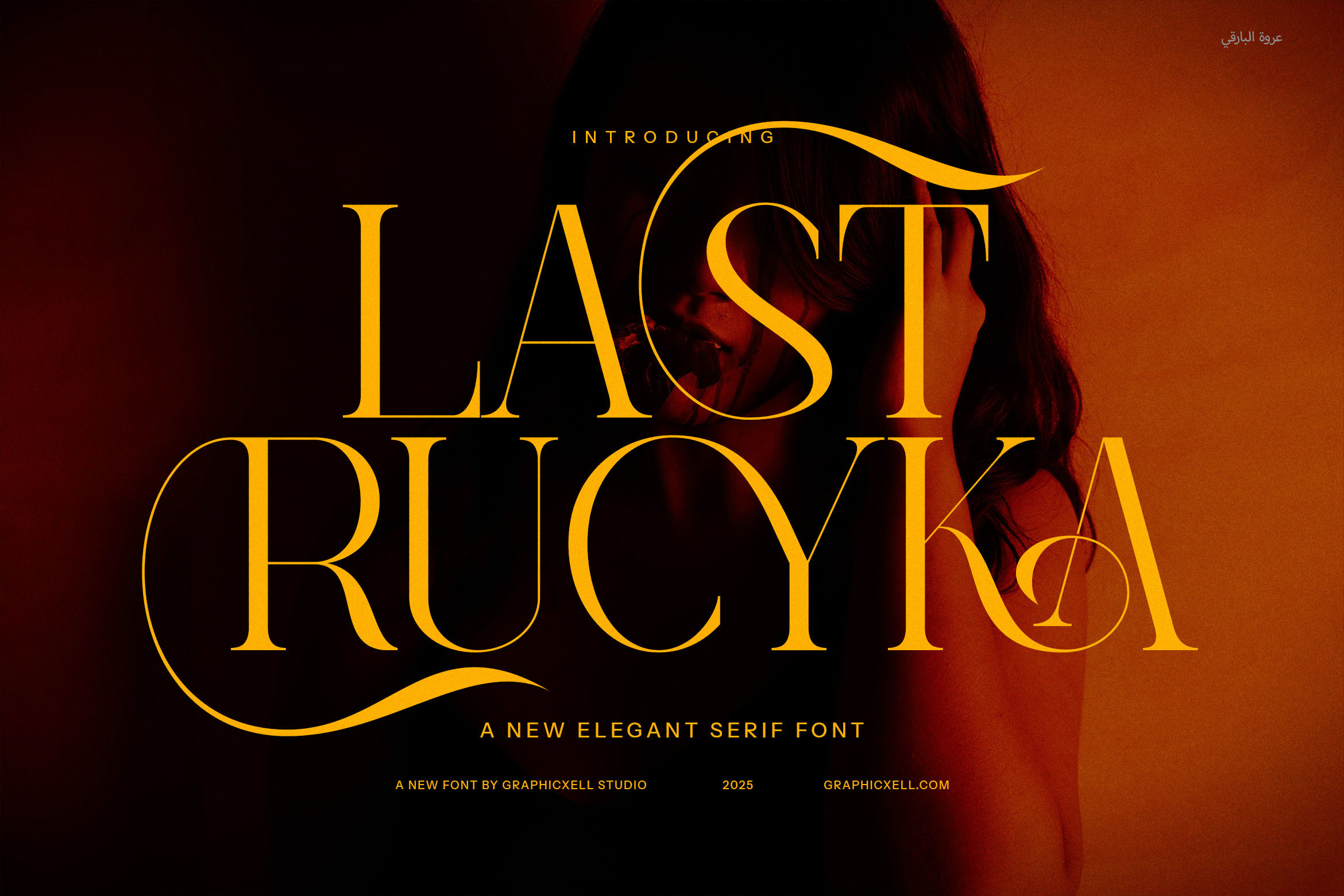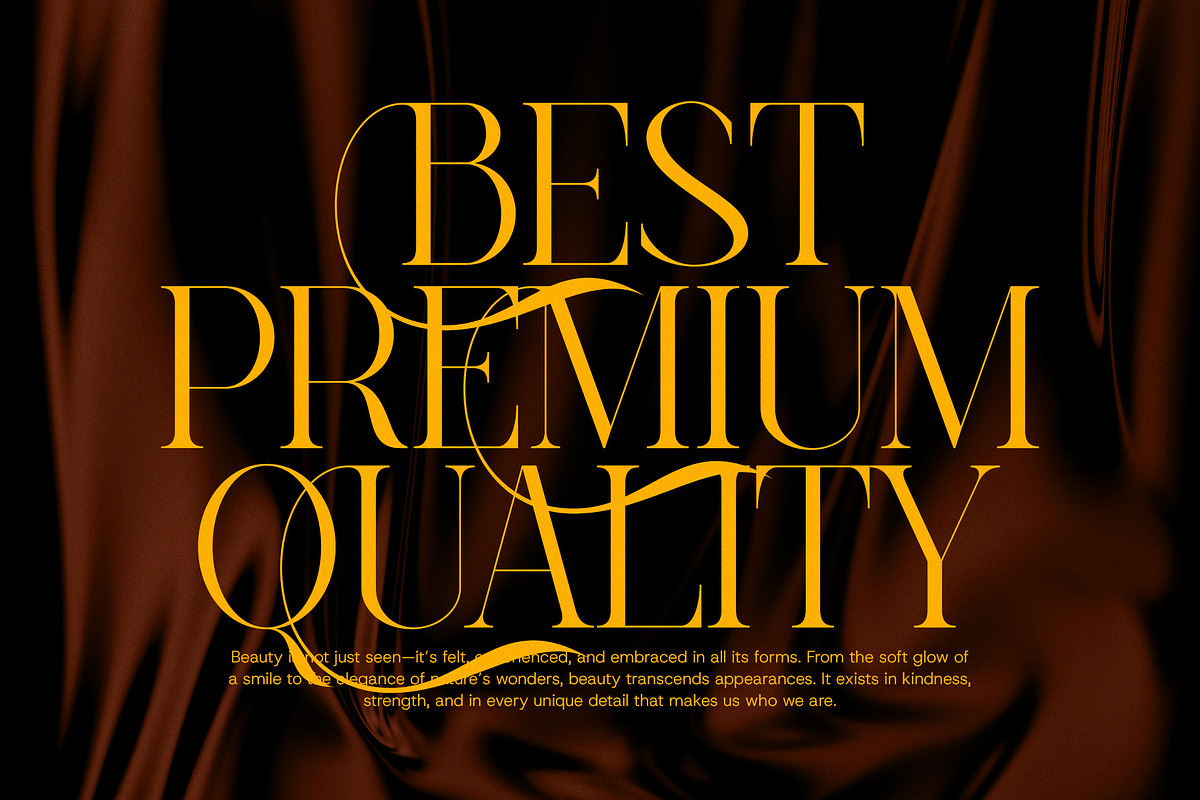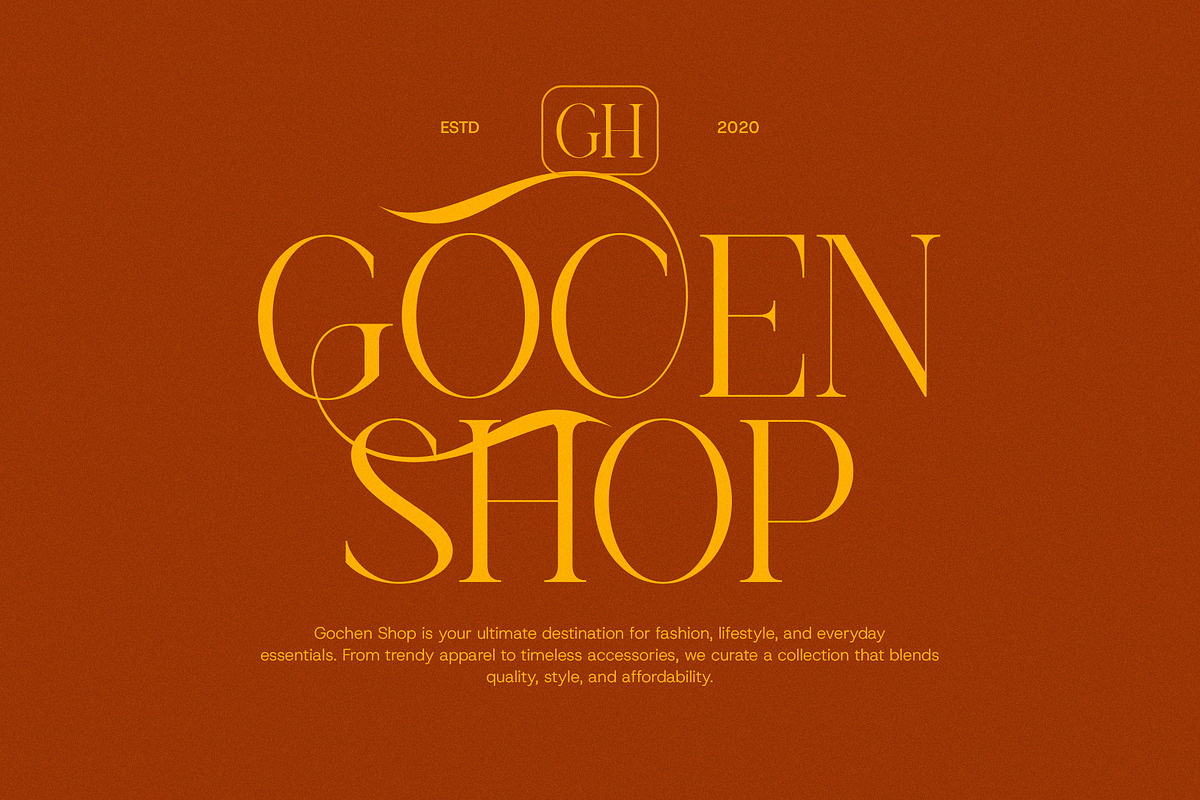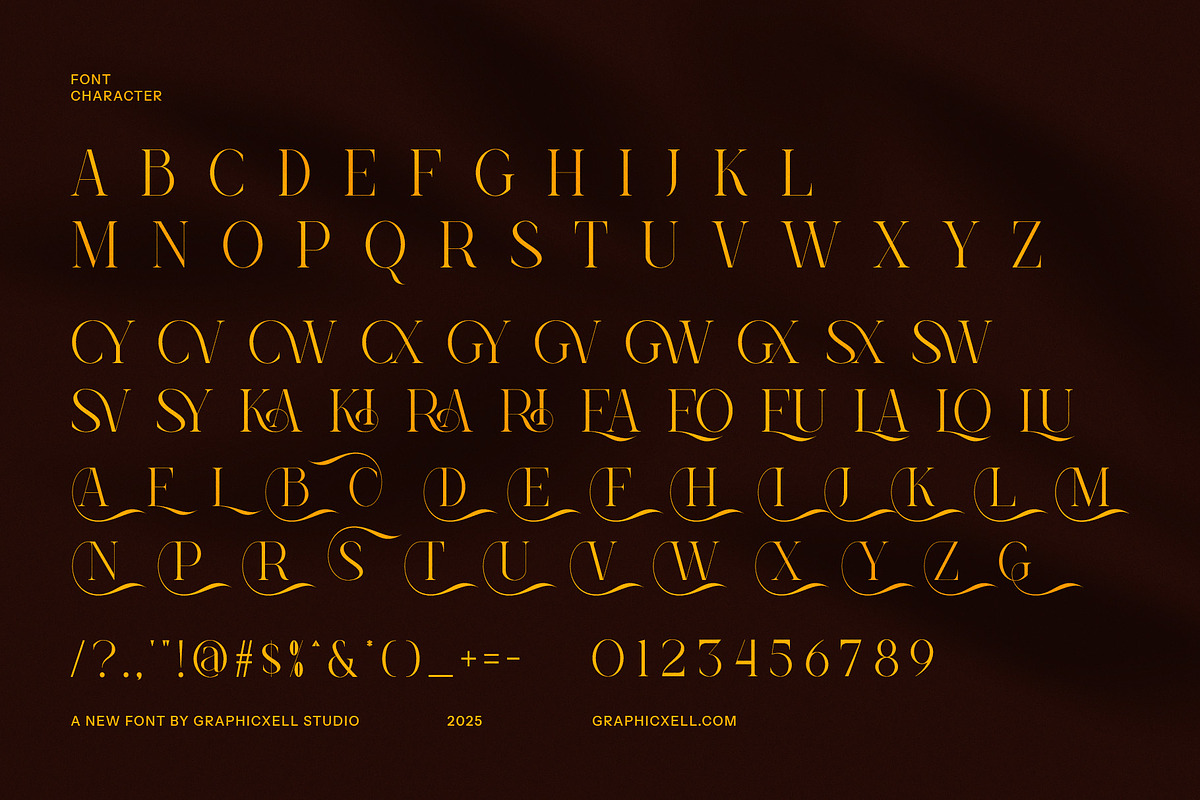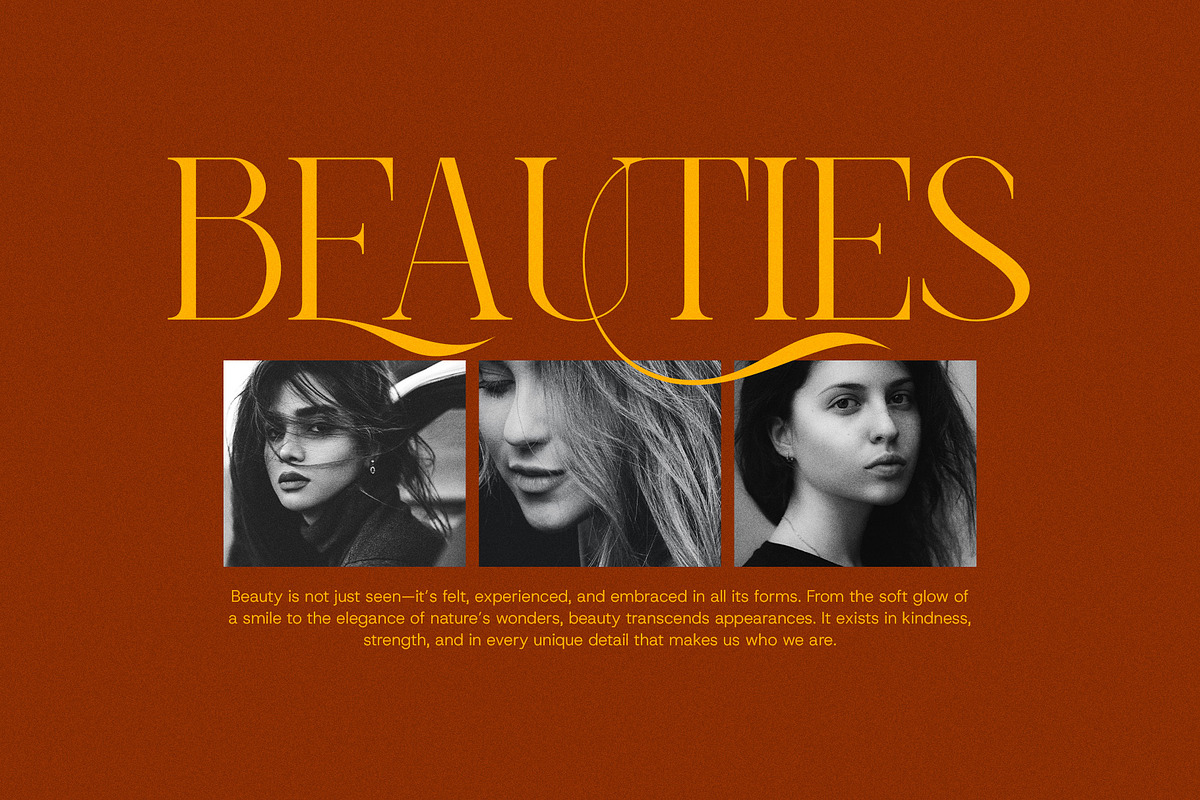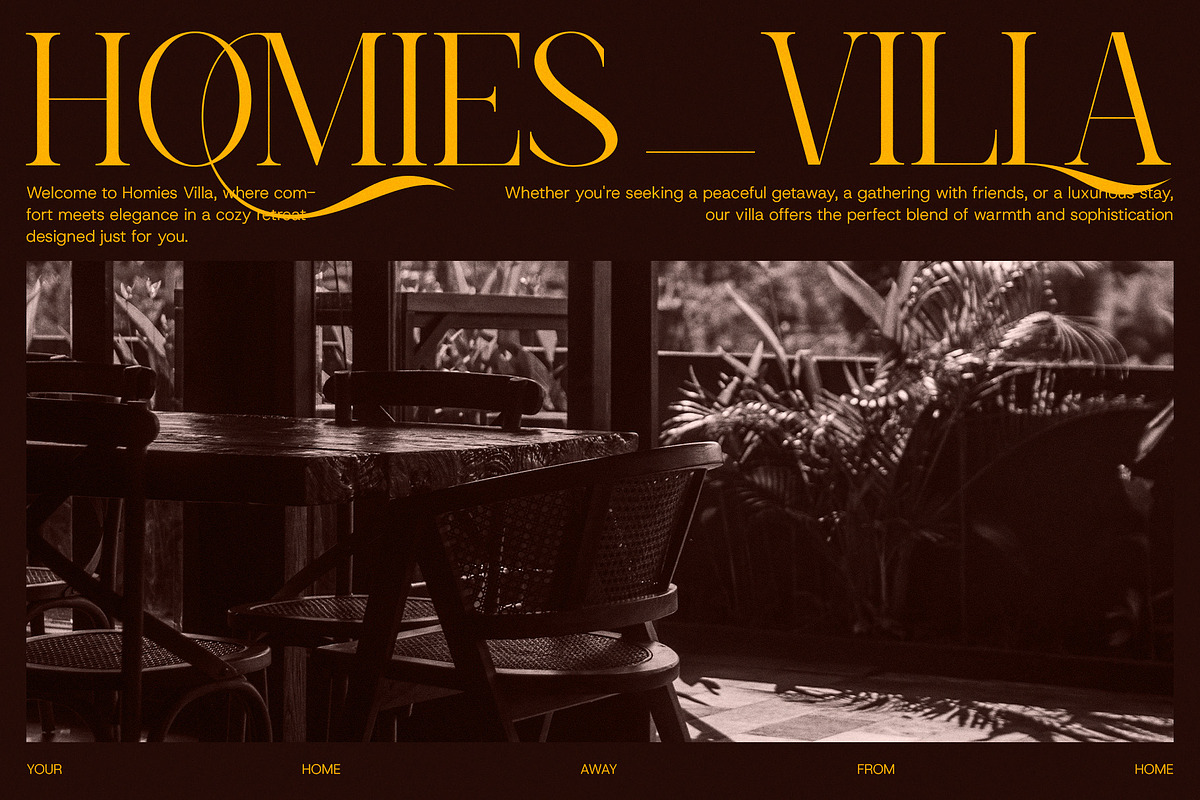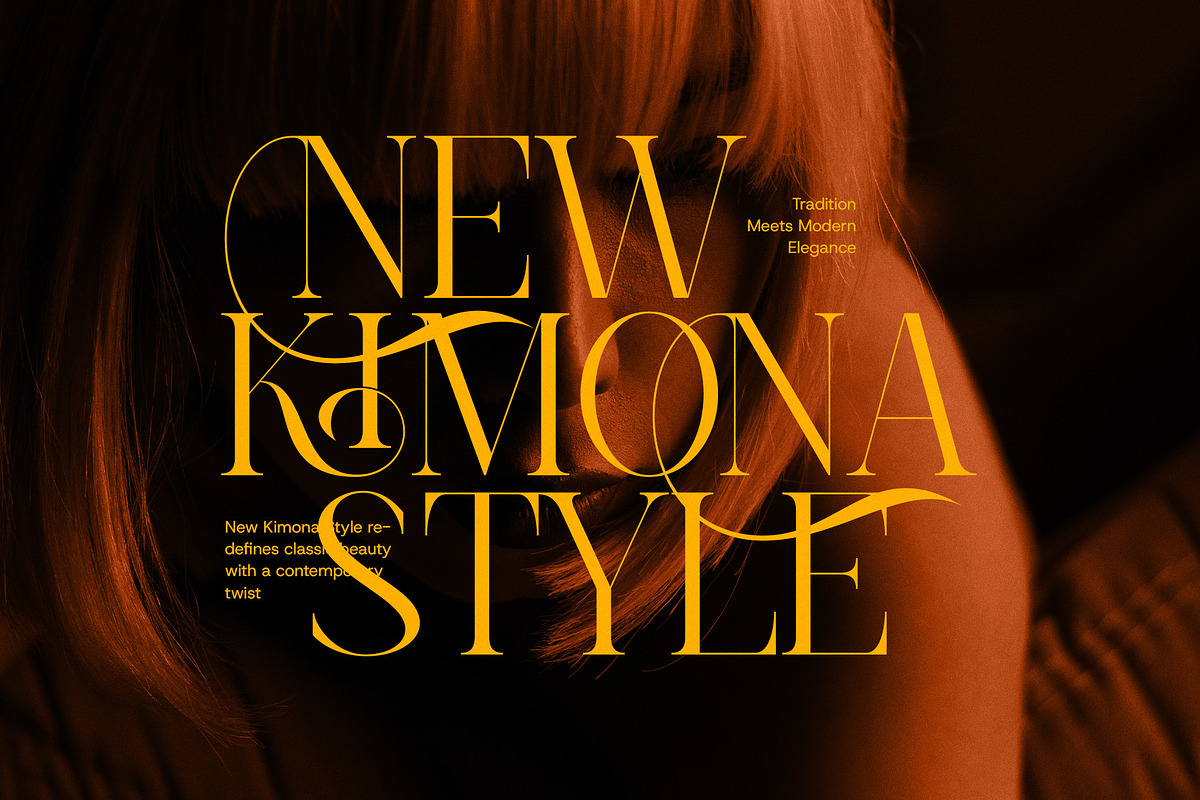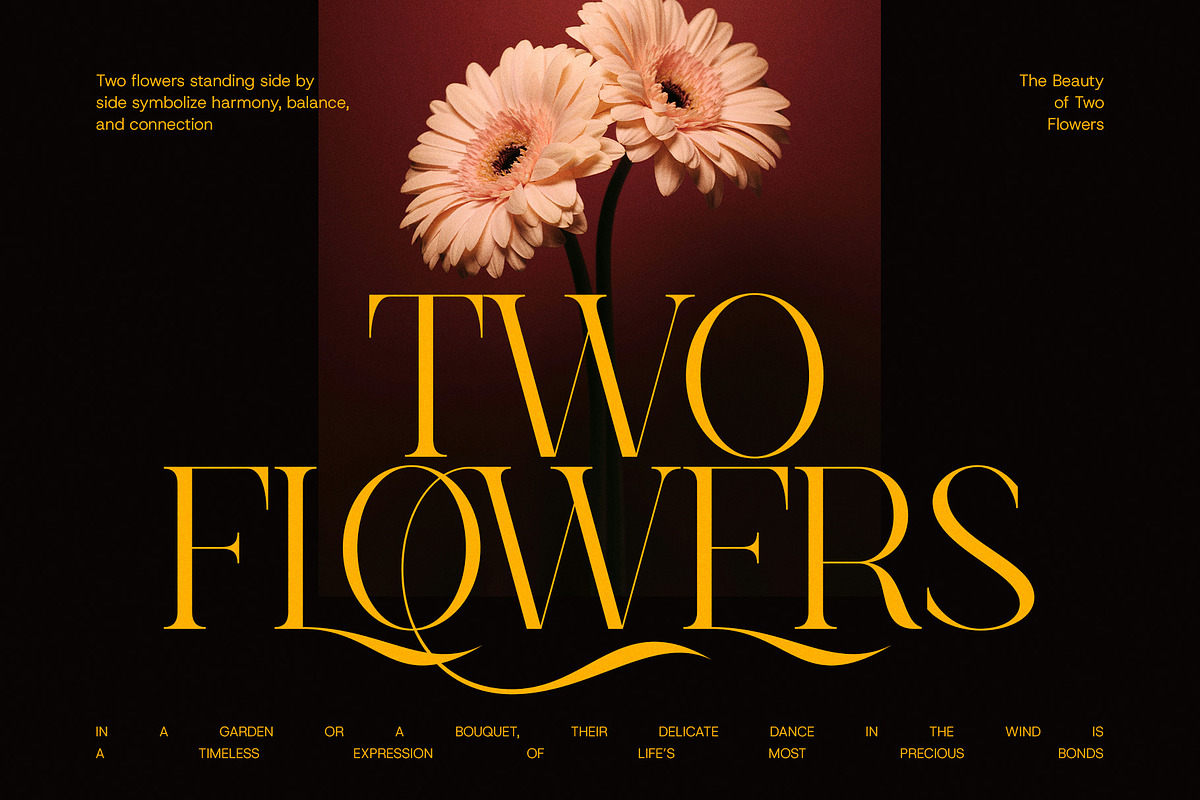
Last Rucyka Stylish Serif Font
Last Rucyka Stylish Serif is a refined and contemporary typeface that blends modern sophistication with timeless elegance. With its graceful serifs, fluid curves, and meticulously crafted ligatures, this font exudes a sense of luxury and exclusivity. The thoughtfully designed alternates provide creative versatility, allowing for unique and eye-catching typography that enhances any design.
Perfectly suited for high-end branding, fashion editorials, and premium product packaging, Last Rucyka adds a touch of refinement to logos, magazines, and advertising materials. Its balanced proportions and artistic details create a harmonious visual appeal, making it a go-to choice for designers who want to achieve a polished and stylish aesthetic.
This font is ideal for businesses that seek to establish a strong and elegant brand identity, whether in the world of fashion, beauty, boutique retail, or fine dining. Its sophisticated letterforms adapt effortlessly to both digital and print media, ensuring readability without sacrificing artistic expression.
With its combination of elegance and contemporary flair, Last Rucyka Stylish Serif is more than just a typeface—it’s a statement of creativity and refinement. Whether used for website headlines, luxury invitations, or high-fashion branding, this font brings a distinctive and stylish touch to every project.
Elevate your designs with the sophisticated charm of Last Rucyka. Let its timeless beauty and modern edge transform your creative vision into something truly extraordinary.